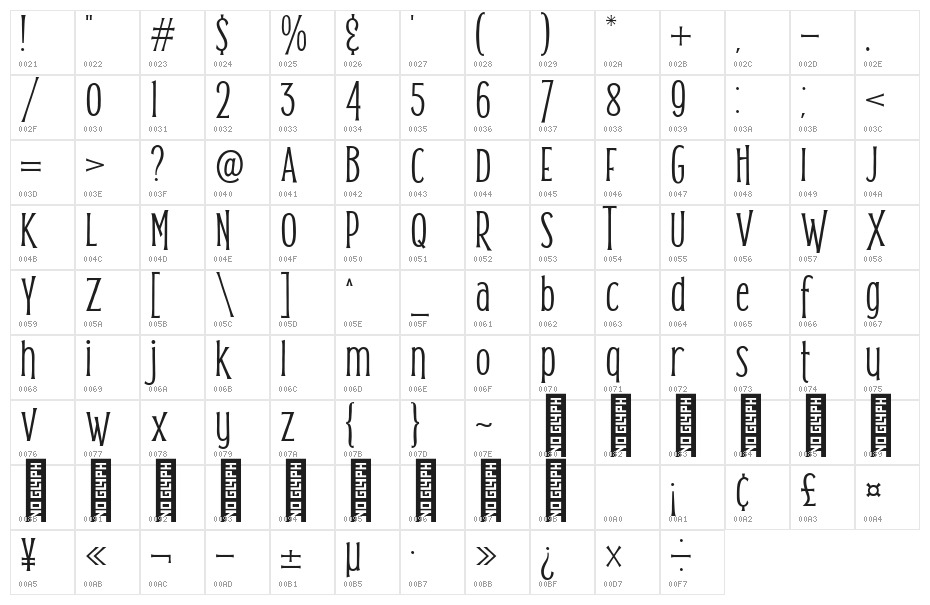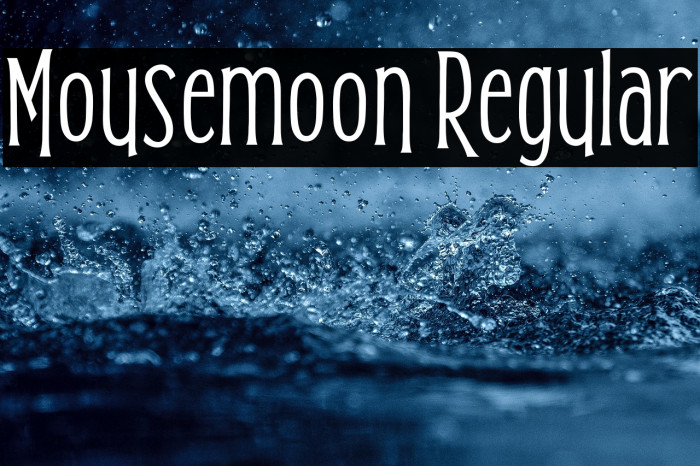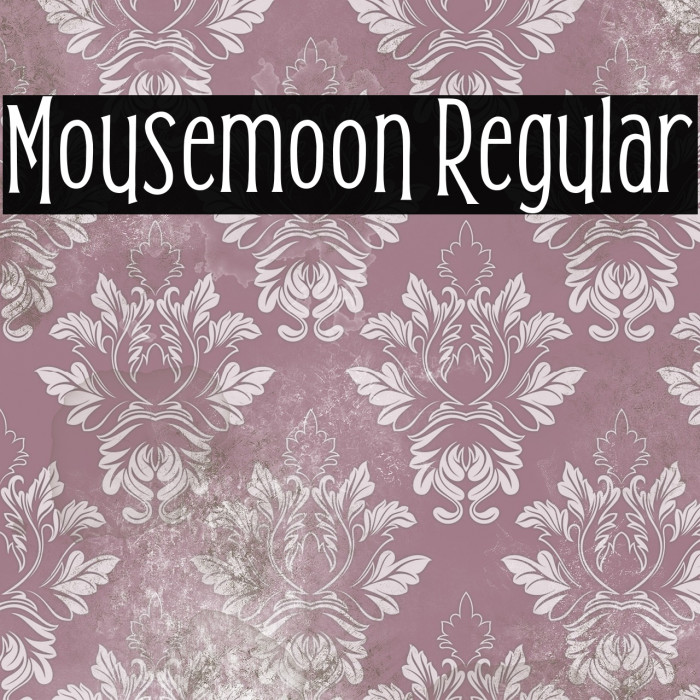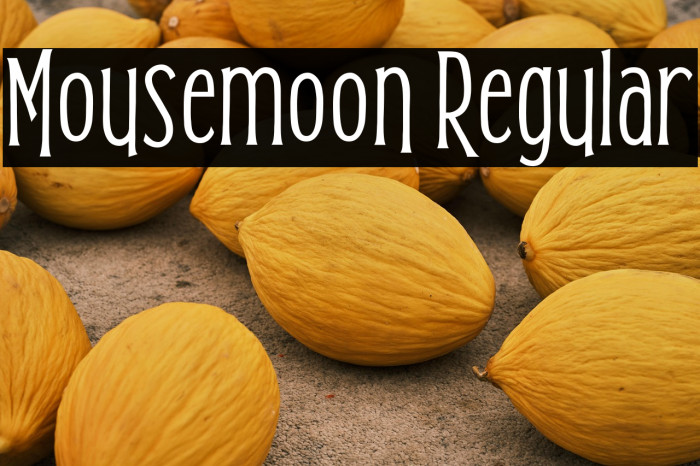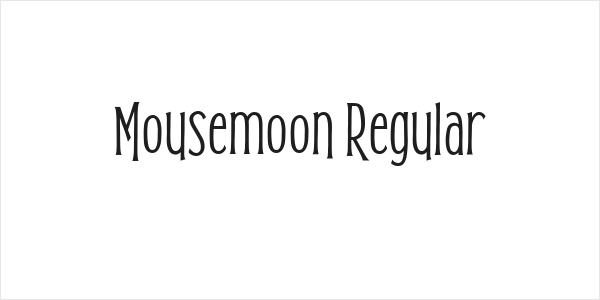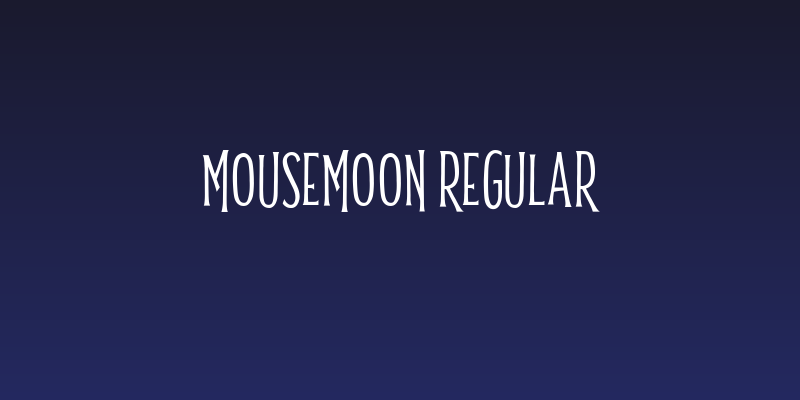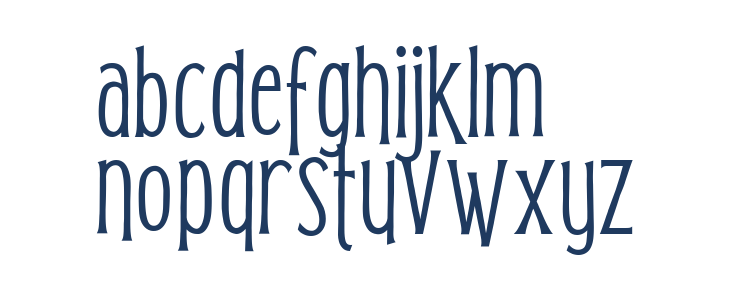
Mousemoon Regular Font
Mousemoon Regular Description
This font features a unique and playful design with elongated and slightly irregular letterforms that give it a whimsical and artistic feel. The characters are tall and narrow, with varying stroke widths that add a dynamic quality to the text. The uppercase letters are particularly striking, with exaggerated vertical lines and subtle curves that create an engaging visual rhythm. The lowercase letters maintain this playful style, offering a cohesive look across different text cases. Numbers and special characters are designed with the same attention to detail, ensuring consistency throughout. This font's distinctive style makes it ideal for creative projects where a touch of personality is desired.
| Width | Condensed |
| Overall Style | Artistic, Playful |
| Proposed Projects | Ideal for creative projects such as children's book covers, playful branding, artistic posters, and unique invitations. |